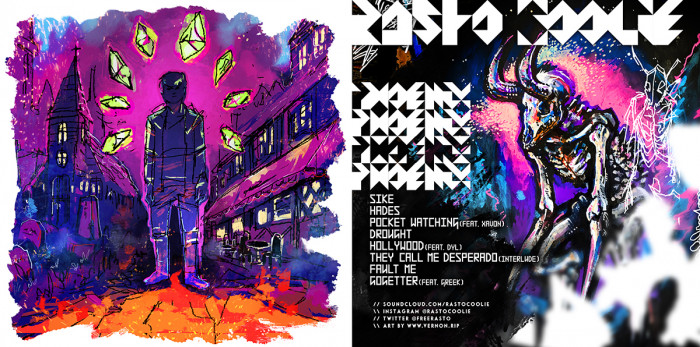
• This is the first typeface I drawn, I've no preparation as type designer so I started with something easy. I named it Modulo 'cause the design principle is to create glyphs with the only combinations of right isosceles tirangles (which combined can make sqares as well).
His role is to create pattern, headlines or something "typografically unconventional". I hope it may inspire you to create something interesting, modify it to improve legibility and glyphs numbers; so, feedbacks are required :)
ps - unfortunately I can't adjust the leading as well as the spacing, the idea is to remove space between lines.
Whoa! I like it! It's different! It's special! I never see the original idea like this before. I think the spacing is unique :D
Thanks ^^ you make me proud! I've seen a lot similar to this one so I hesitated a lot before sharing and registering it. Moudlar fonts are so many but Modulo is one of a few that creates geometrical paints between the lines and glyphs, without spacing and leading.
I love the concept of no spacing, although it's made hard to read but yeah, The idea and the sample were so good
Wow! Thanks a lot meek! Adien, I would be glad (as descriptions says) to see you improving Modulo. I think that i is the biggest problem, w may be read as a v at first sight but I think it still be passable. Anyway, make an attempt!
i dont have idea for w. Maybe you need to remove the triangle in the down middle and change it to complete block (sorry I'm not native English)
I'm italian, make an idea of my english knowledge xD anyway I think I've understood, I'm gonna try :)
I've forgot to reply! I've tried it but becomes too heavy and the glyph seems a flower, I've also tried to mirror it but it works worse. Come on folks! Other suggests!
Both print and text.
I've wrote in italian, so don't try to understand xD
It says "disegnare una scritta non è scrivere un disegno", which means "to draw a type is not to type a draw".
WOW! Amazing! This is so unique! I like it!
Hello! I love love love this font and have had it on my computer for a while and I finally found a project to use it on — some album artwork for a friend. He released the music on Spotify and may make physical cds, I hope that's cool with you! Tysm for making such an awesome font!